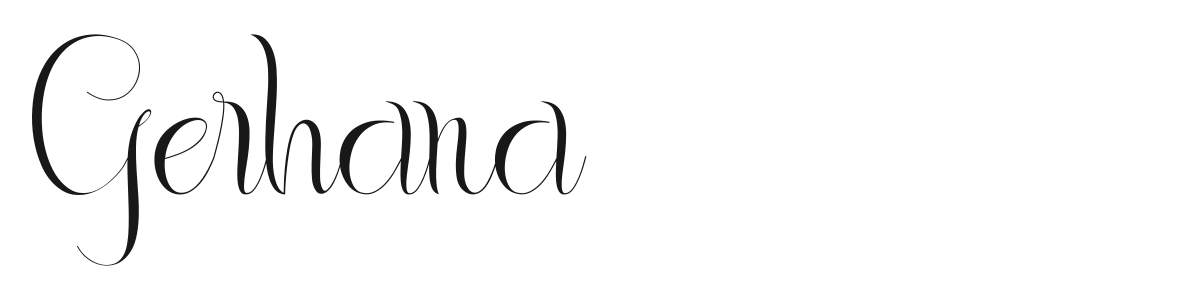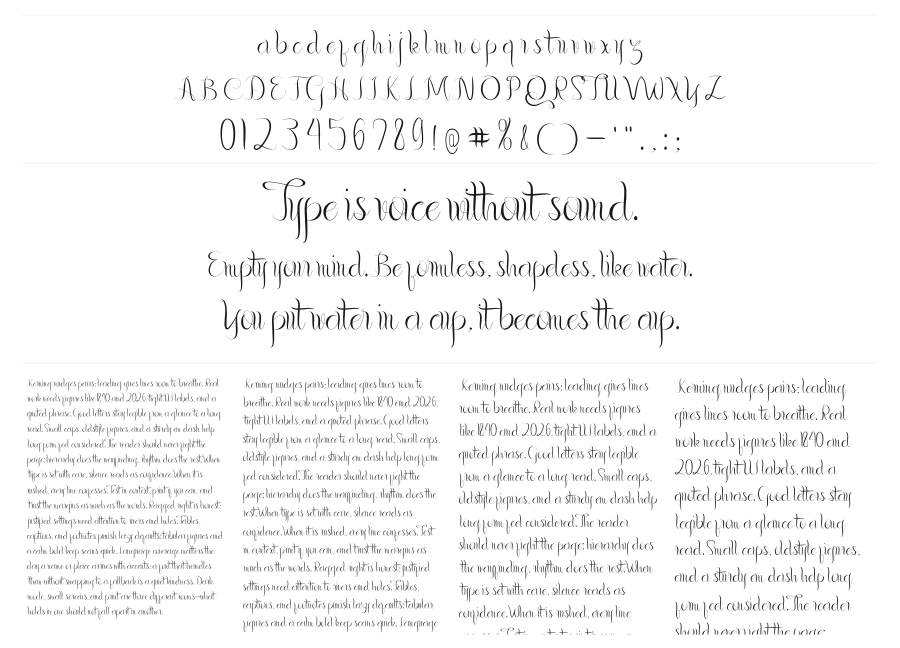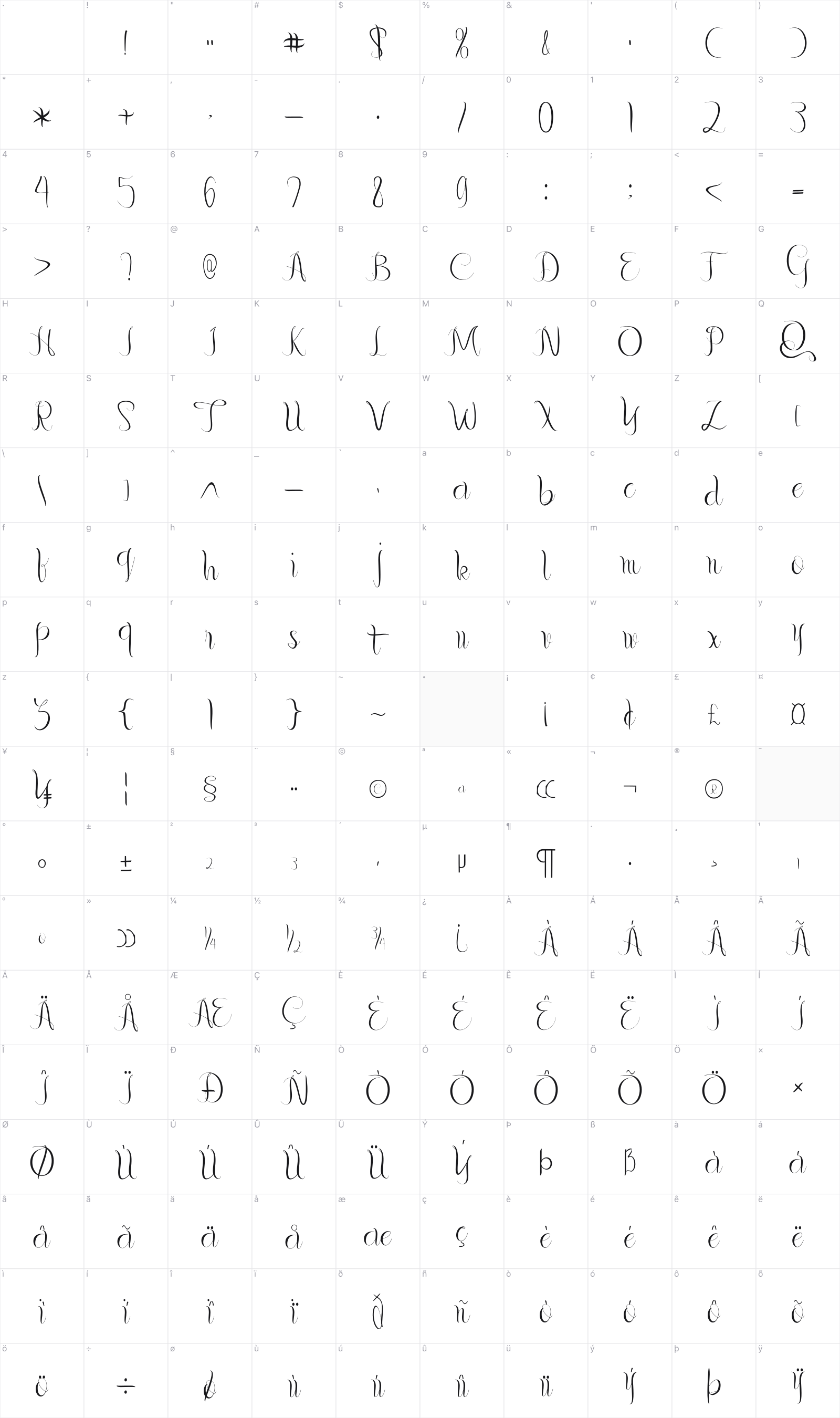
Gerhana
Gerhana is a flowing formal script with dramatic contrast between hairline strokes and swelling thicks, shaped by a calligraphic tradition reminiscent of Spencerian penmanship. Looping ascenders, expressive descenders, and generous swash details give it a romantic, celebratory energy. It suits wedding stationery, beauty branding, and any context where elegance is the primary message.